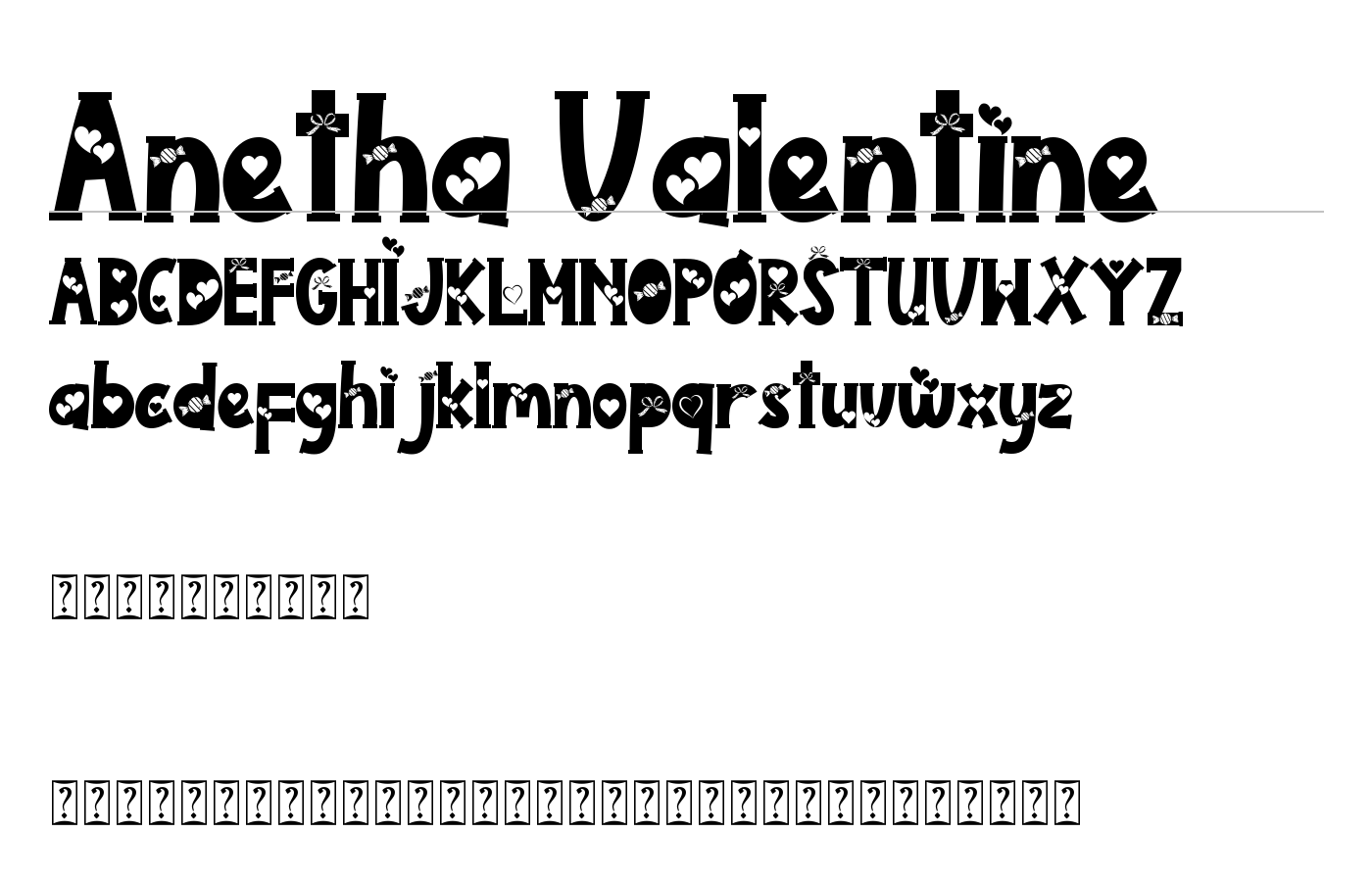
Anetha Valentine is a whimsical display font with a playful, decorative style featuring bold, chunky letterforms adorned with heart and candy motifs, perfect for festive and romantic themes. Its unique and quirky design makes it ideal for eye-catching headlines, invitations, greeting cards, and branding that aims to evoke fun and affectionate emotions. This font works best in creative projects where a lively and charming atmosphere is desired.
Anetha Valentine Font
About Anetha Valentine Font
| Font family | Anetha Valentine Font |
| Designer | Yoga Letter 2024 (Isroni Yoga Prasetya) |